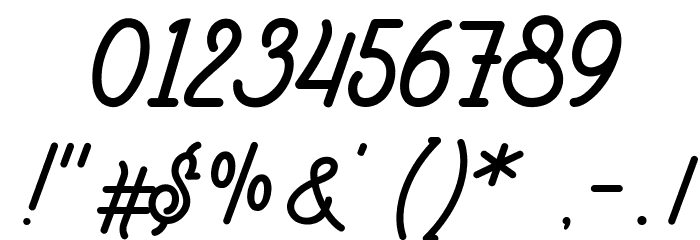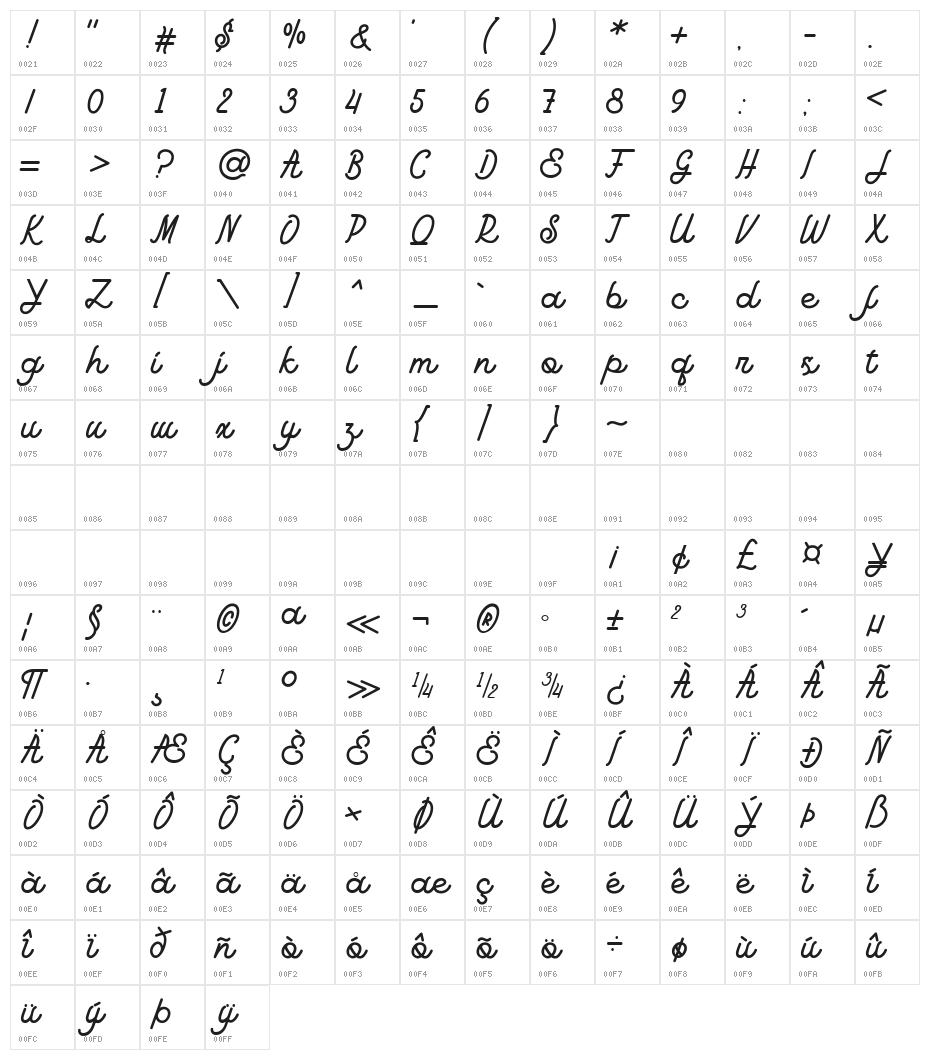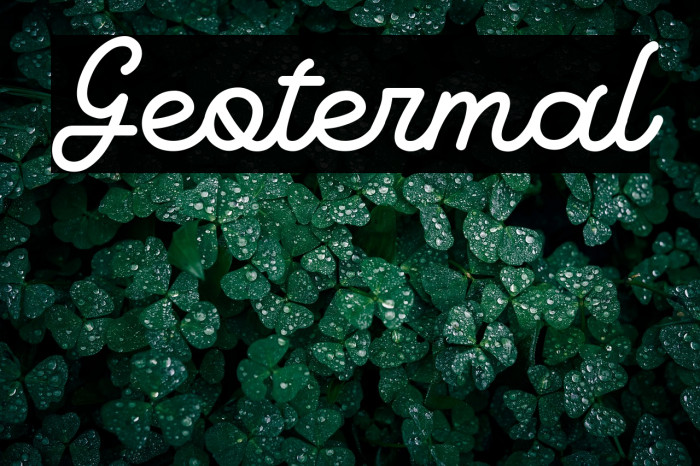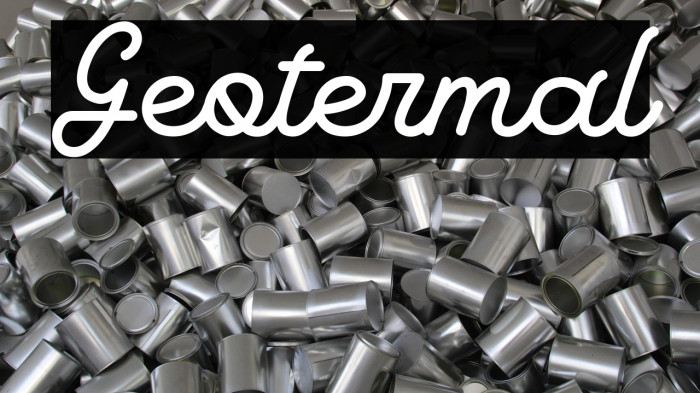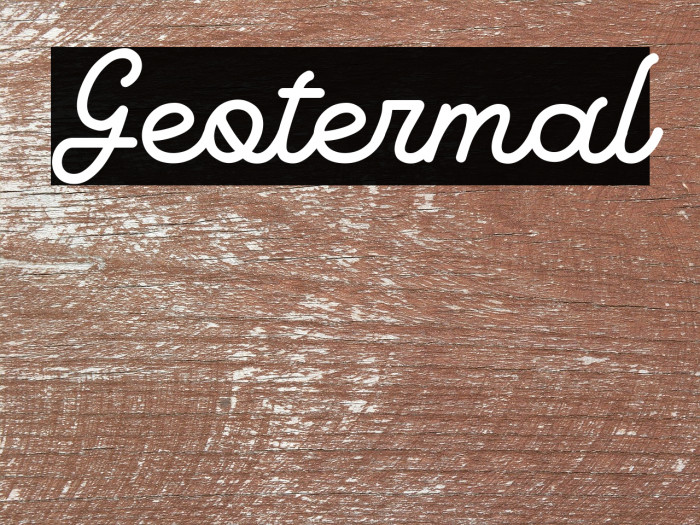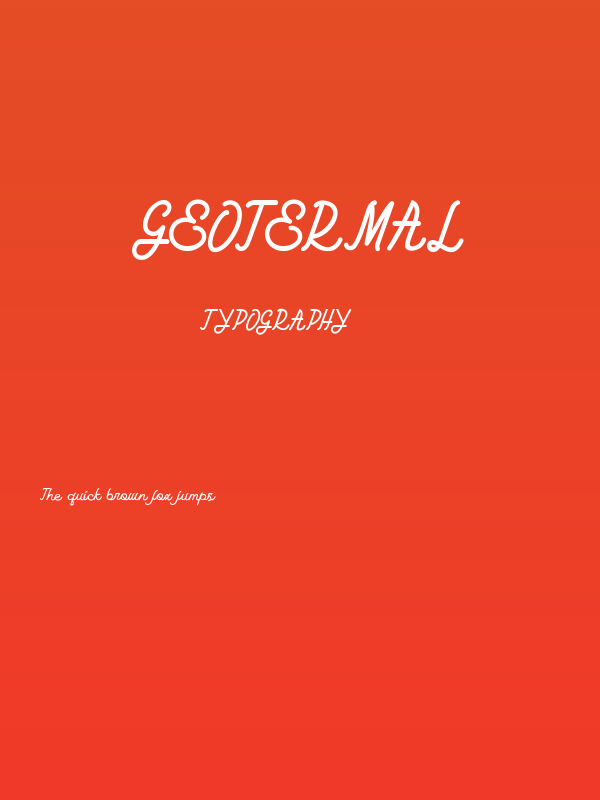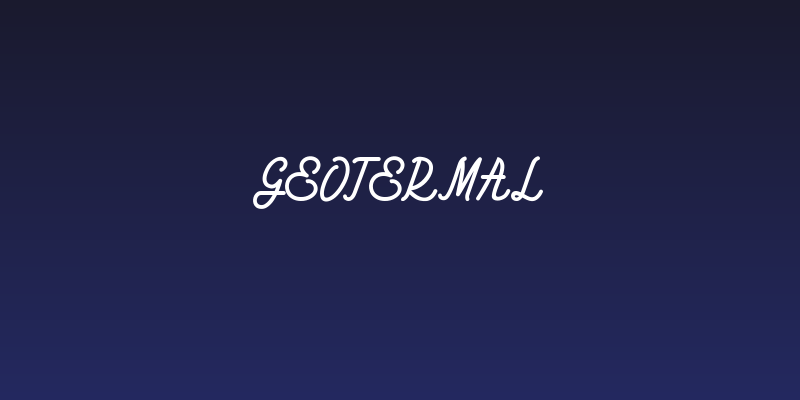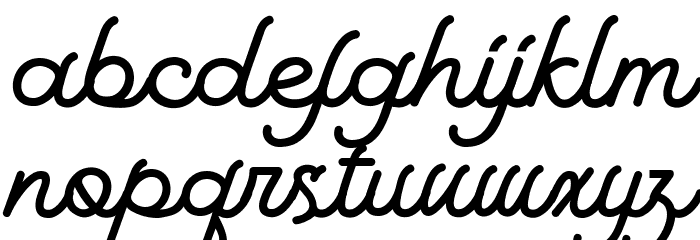
Geotermal Font
Geotermal Description
This font features a flowing, cursive style with a handwritten appearance. The characters are connected, giving it a continuous and elegant look. The uppercase letters are slightly more elaborate, with loops and curves that add a touch of sophistication. The lowercase letters maintain a consistent flow, enhancing readability while preserving the script's artistic flair. Numbers and special characters are designed to match the overall style, ensuring a cohesive look across all text. The font's smooth curves and balanced proportions make it suitable for projects that require a personal, yet polished touch.